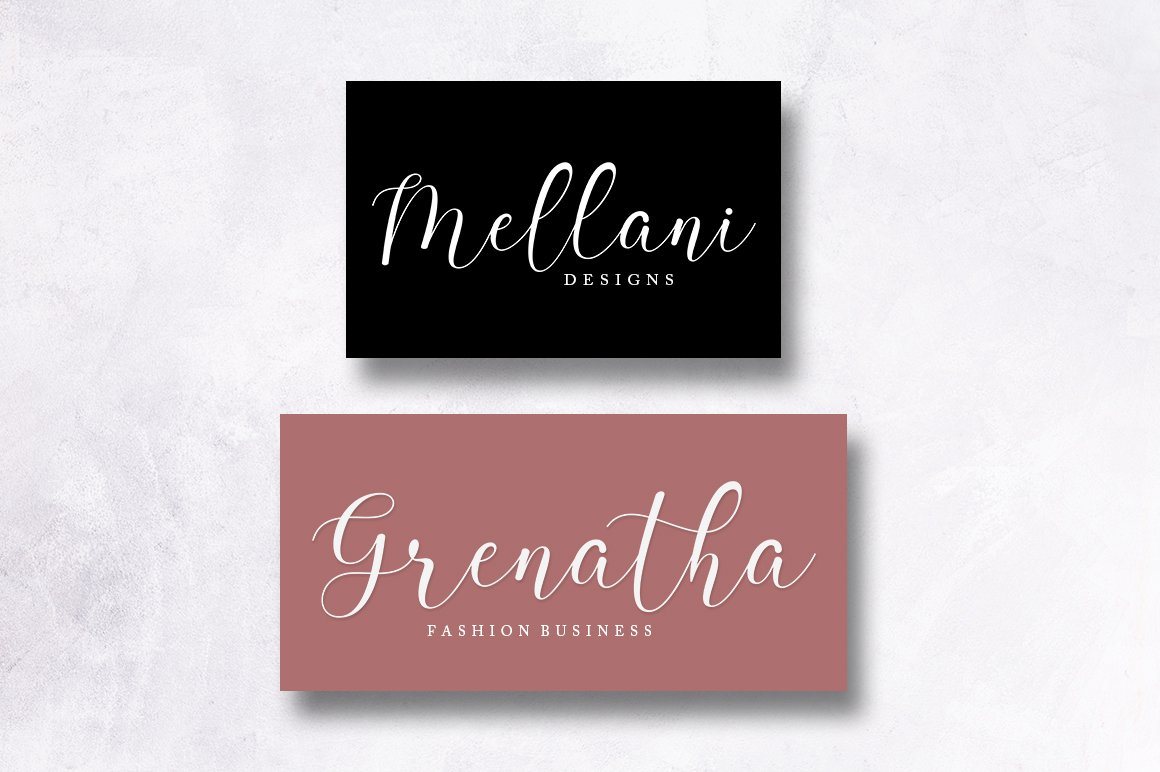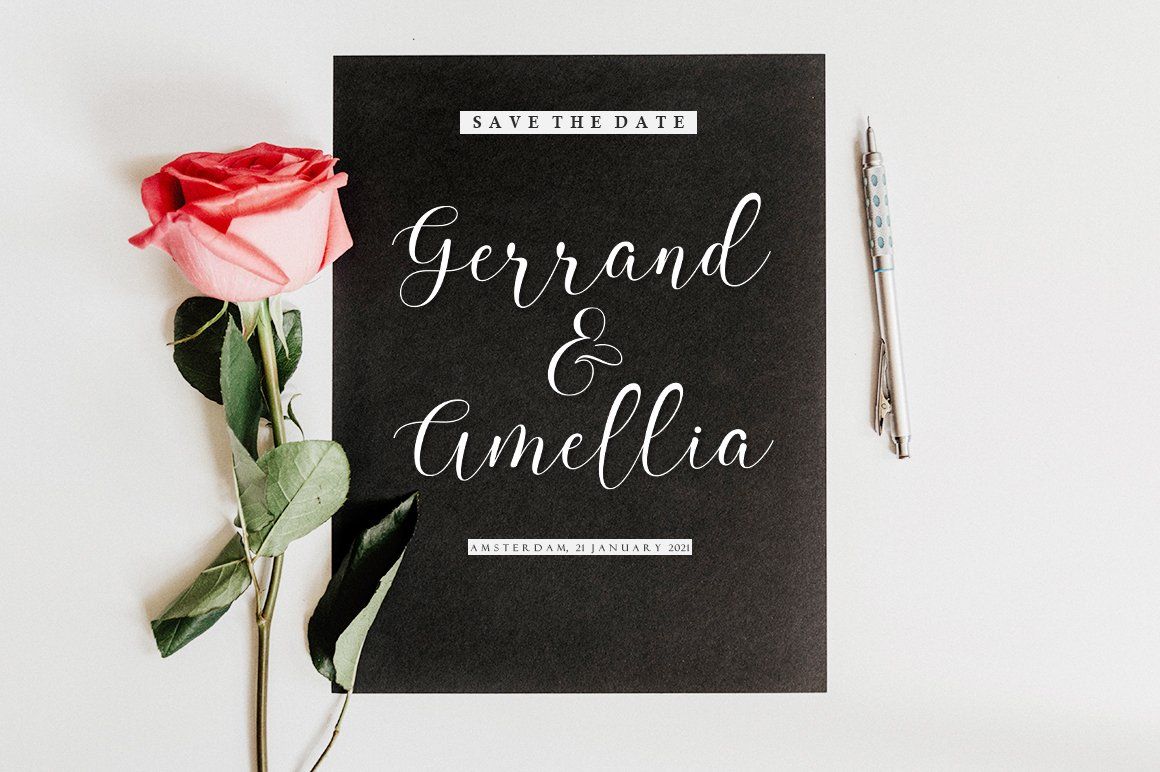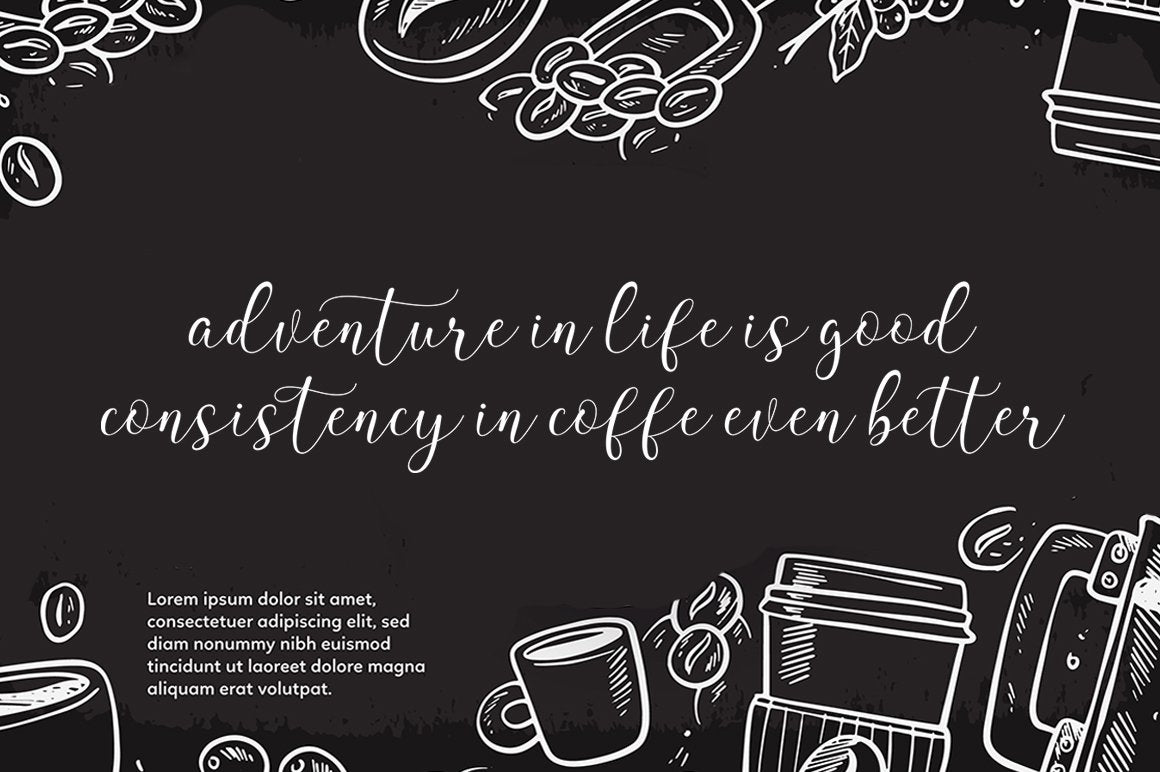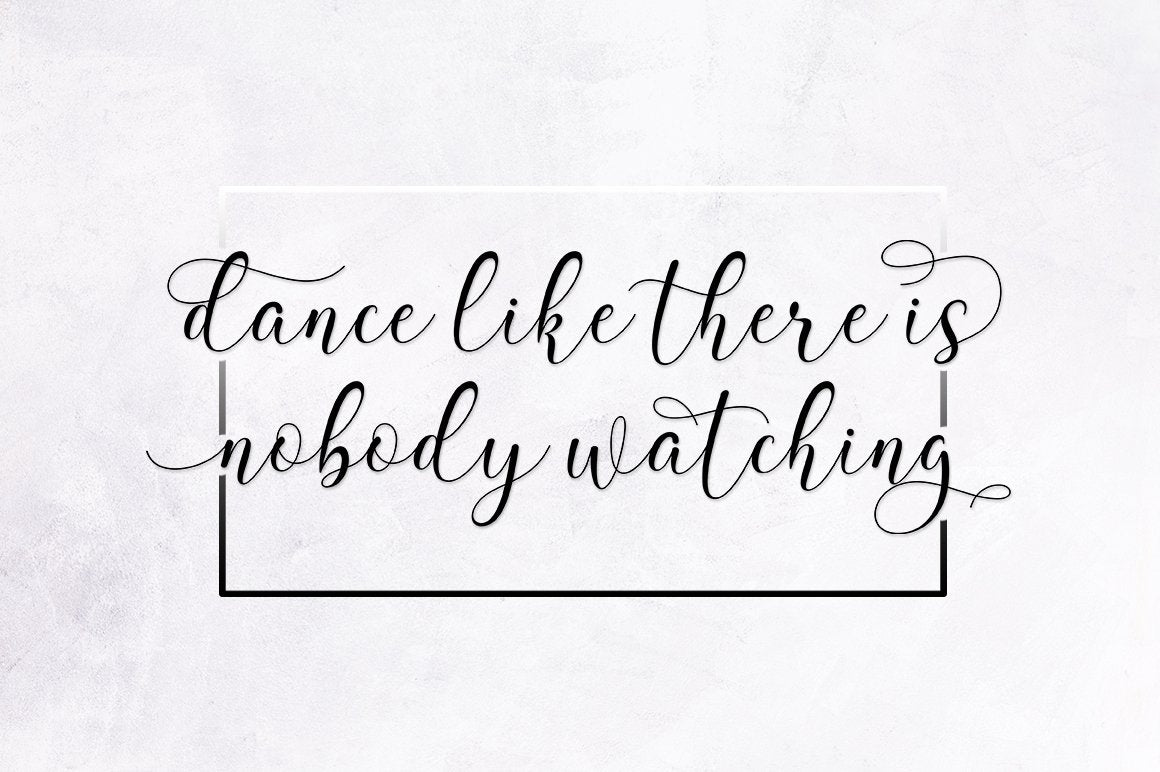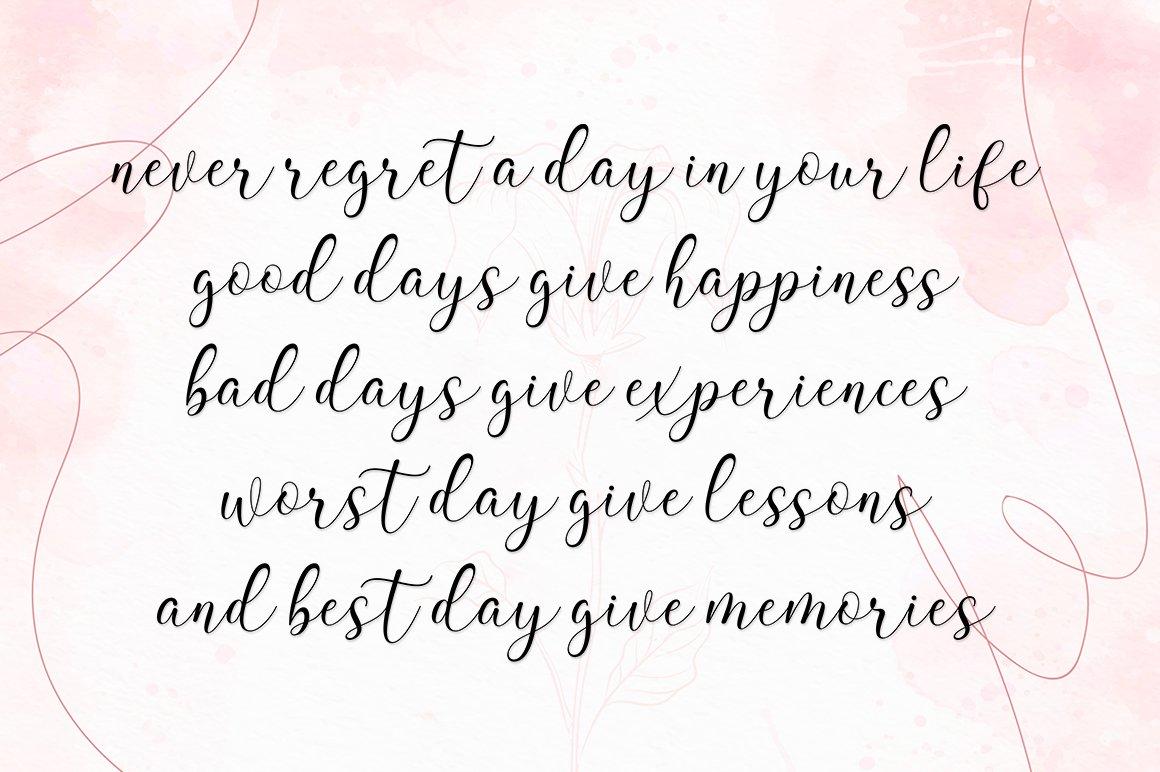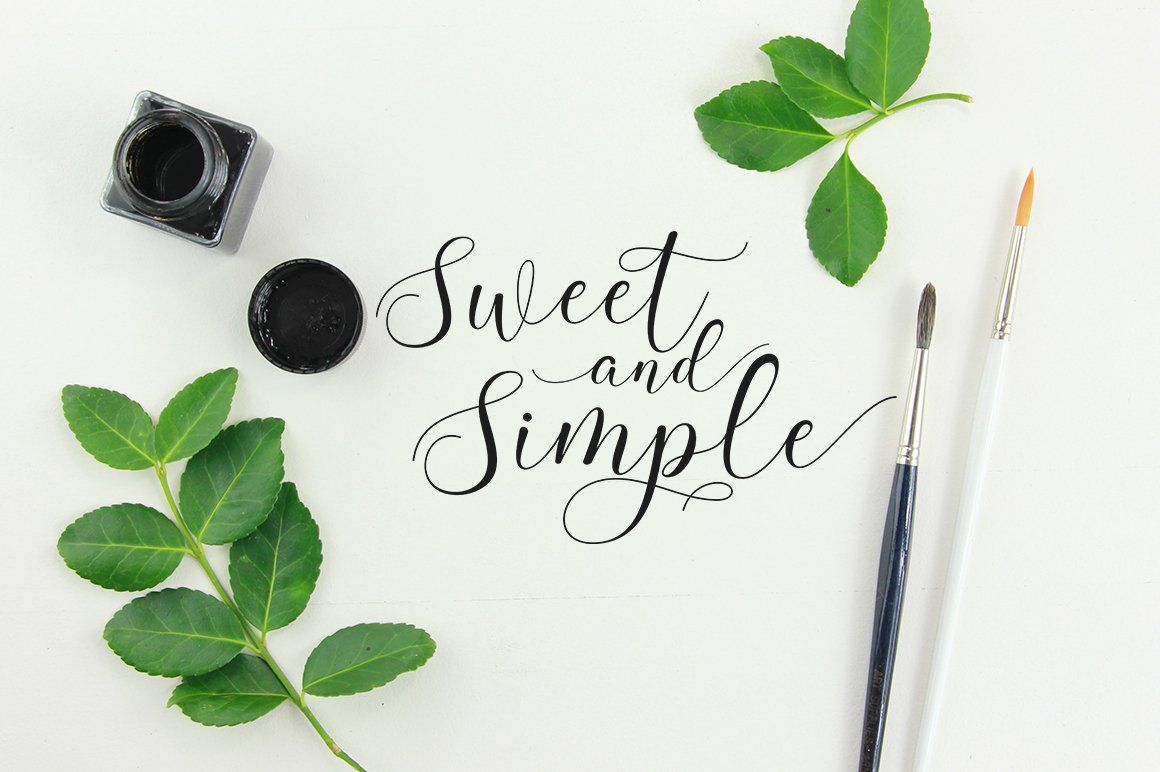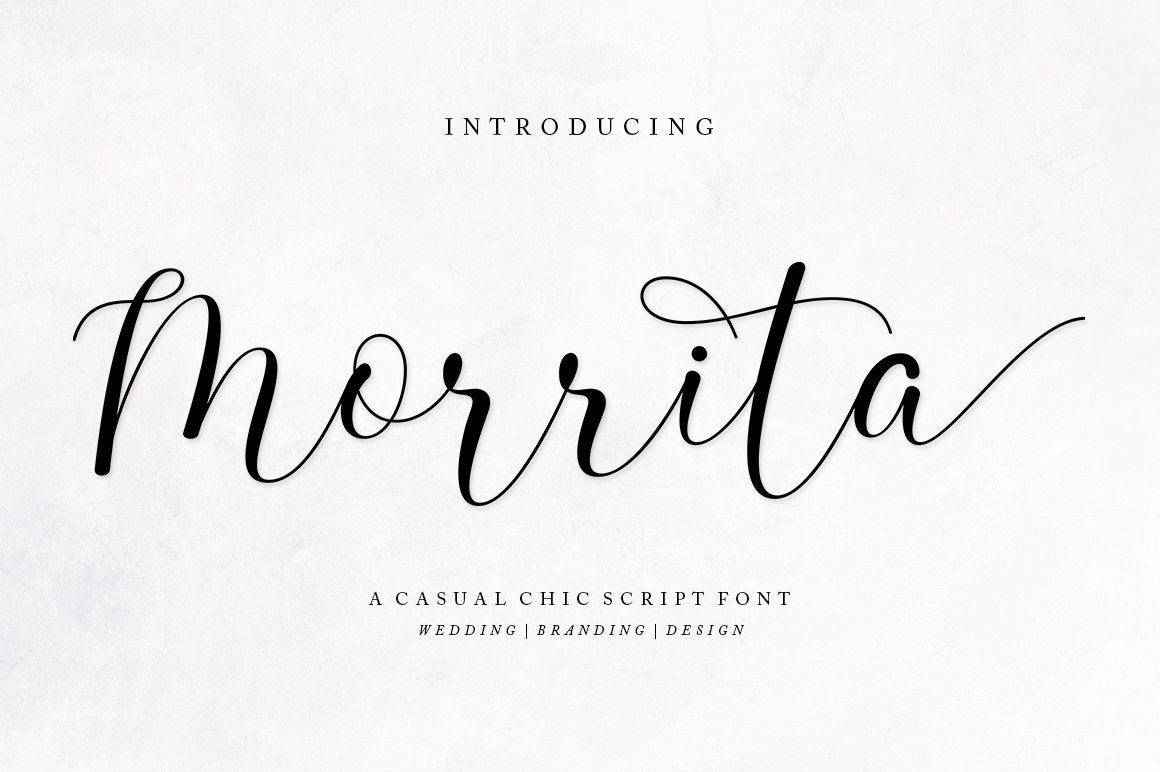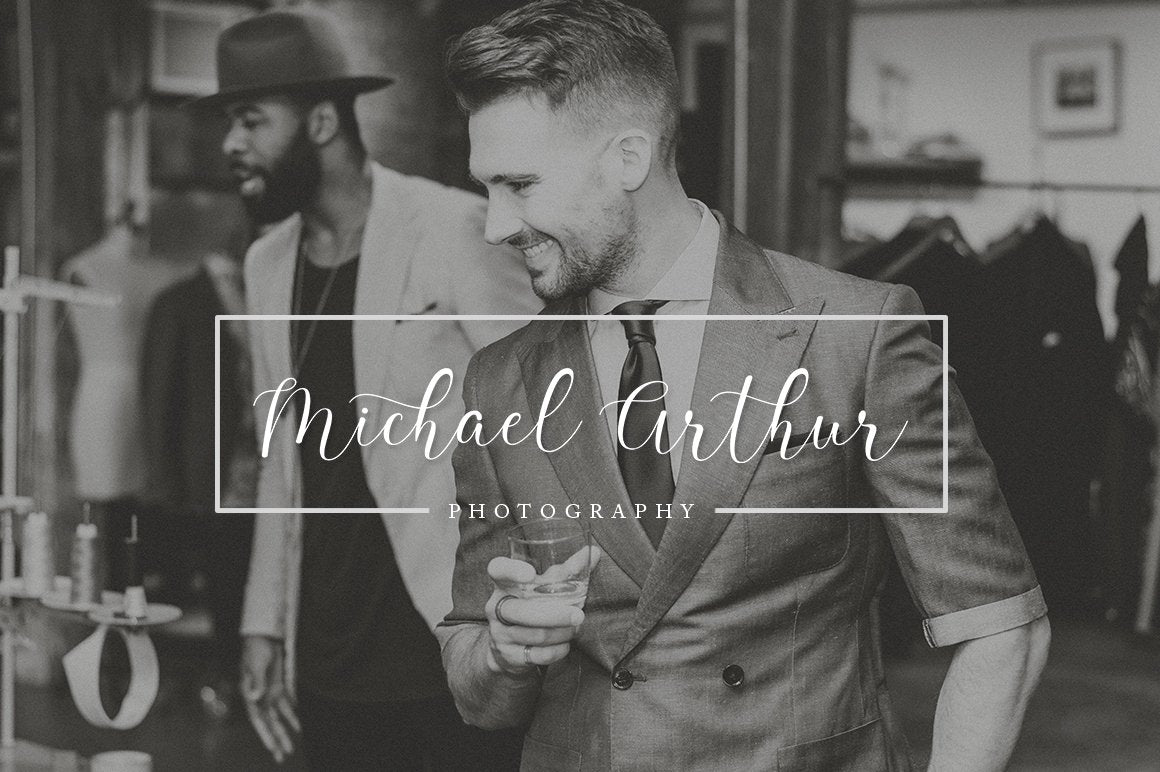
Morrita Script
About Morrita Script
Morrita Script is a new modern script font with an irregular base line. With its trendy and feminine style, Morrita Script looks beautiful on wedding invitations, thank you cards, quotes, greeting cards, logos, business cards, and more. Includes beginning and end letters, alternatives and support for many languages. To enable the OpenType Stylistic alternative, you need a program that supports OpenType features such as Adobe Illustrator CS, Adobe Indesign & CorelDraw X6-X7, Microsoft Word 2010 or newer versions. There are additional ways to access alternatives / swashes, using Character Maps (Windows), Nexus Fonts (Windows), Font Books (Mac) or software programs such as PopChar (for Windows and Mac). How to access all alternative characters: https: //www.youtube.com/watch? v = Go9vacoYmBwhttps: //www.youtube.com/watch? v = XzwjMkbB-wQhttps: //www.yo Need help or have questions, please let me know. I am happy to help.